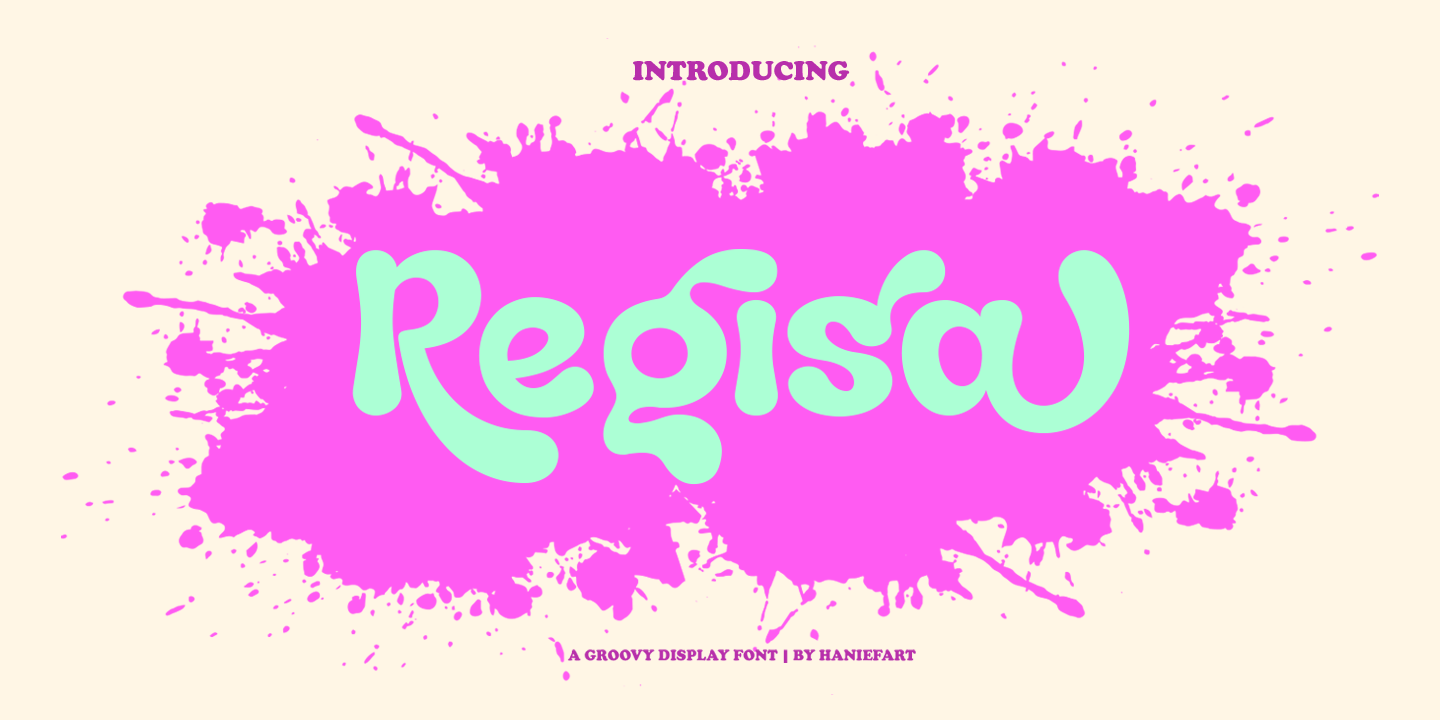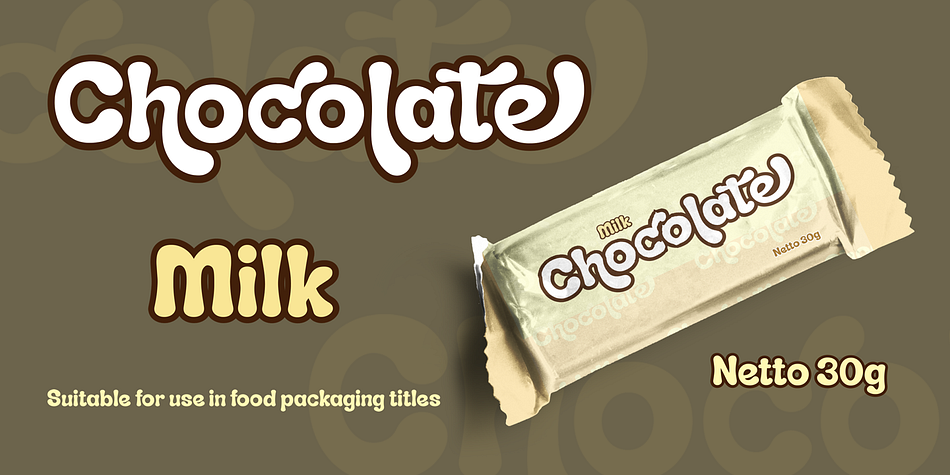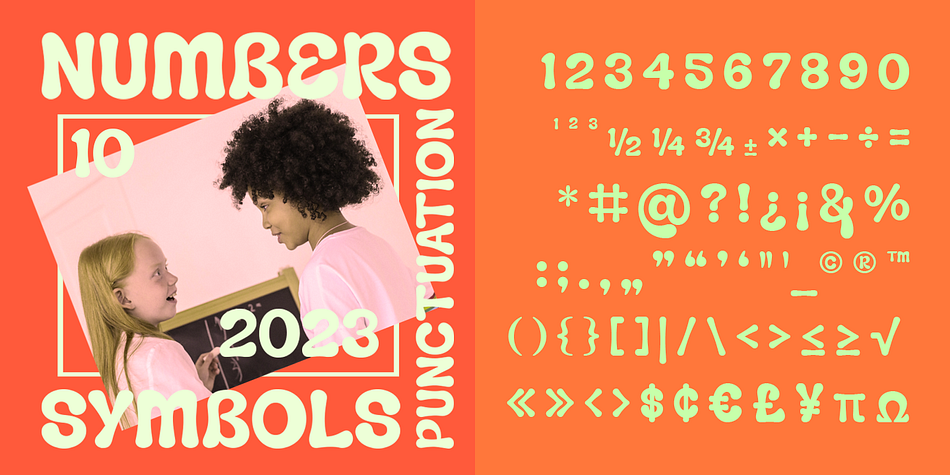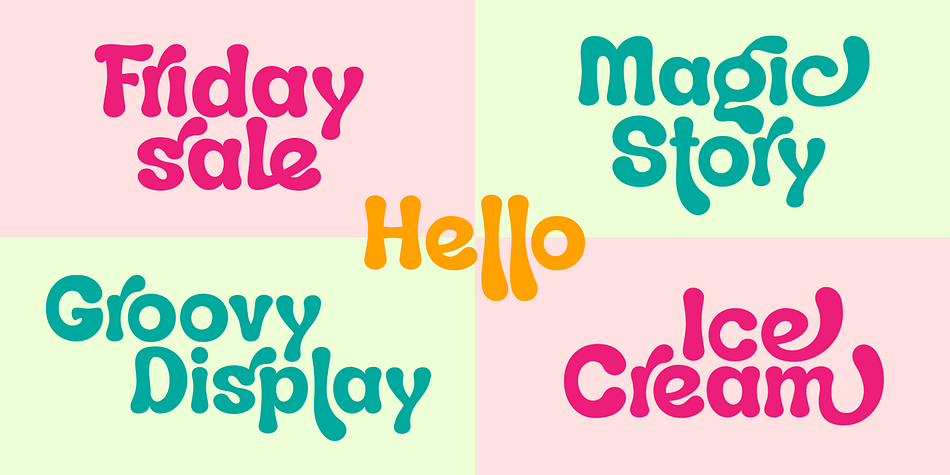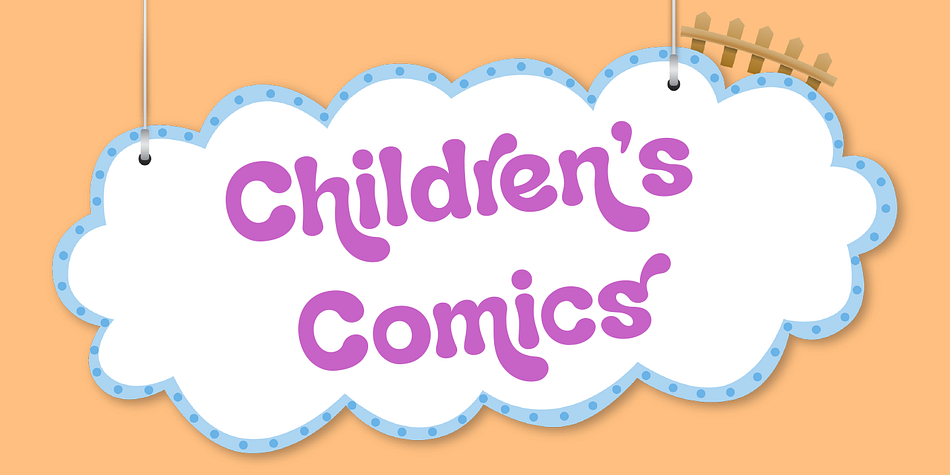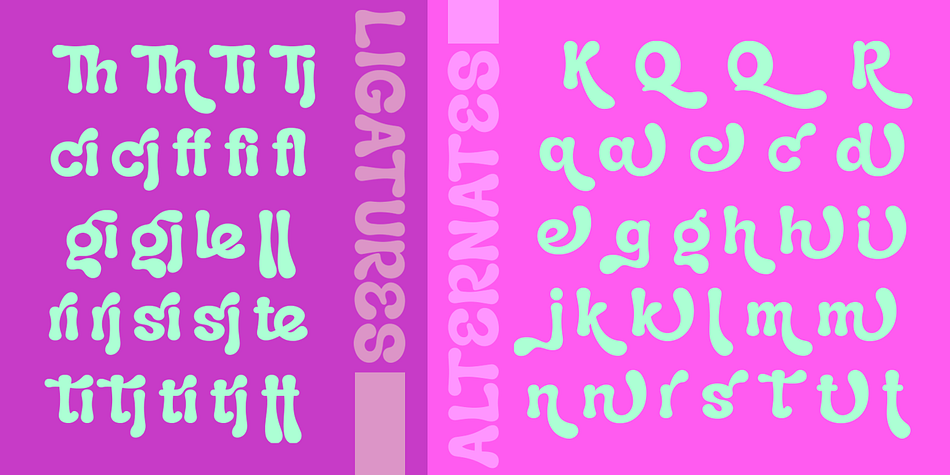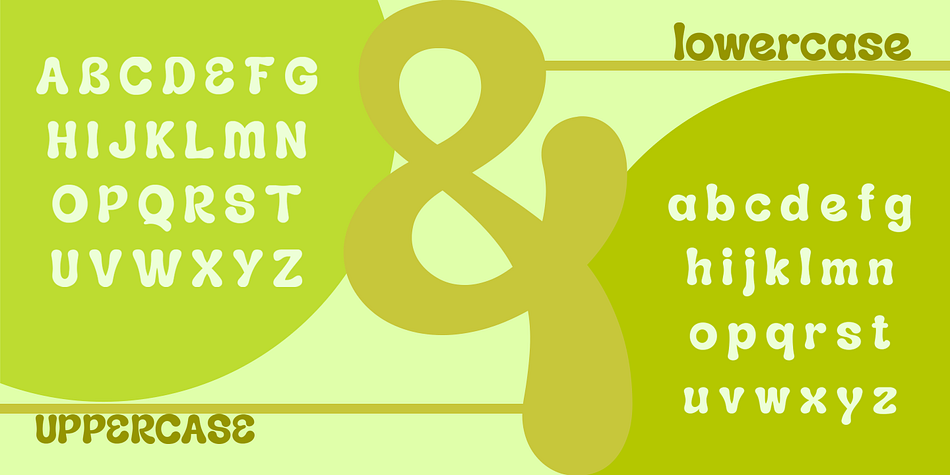
Regisa
Designed by Hanif Maulazi, Regisa is a display sans font family published by Haniefart.
Regisa is a handcrafted typeface, inspired by water drops, coming in uppercase, lowercase, ligature and alternate. You can really make Regisa feel personalized for your client’s project. Regisa is suitable for business brands, magazines, comics, T-shirts, banners and many others.